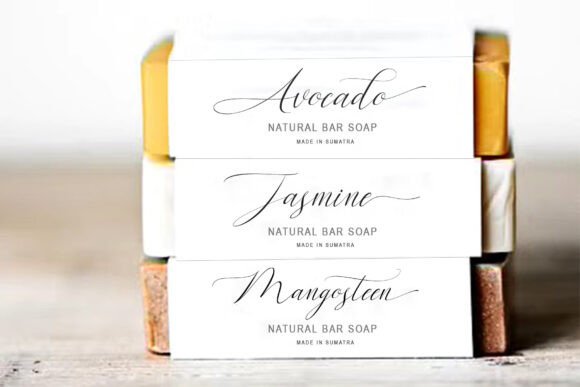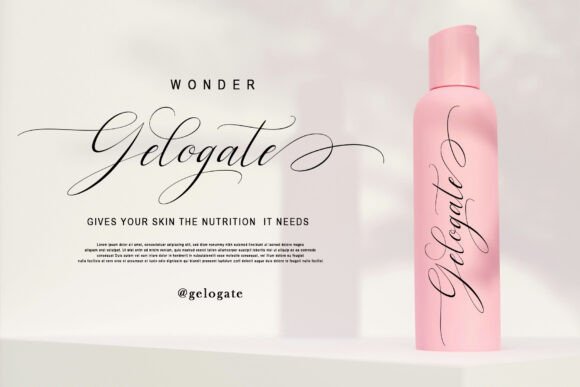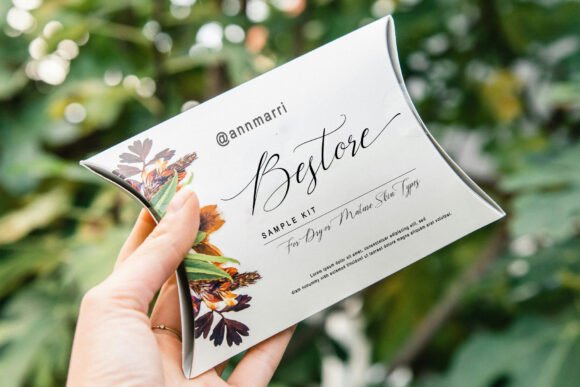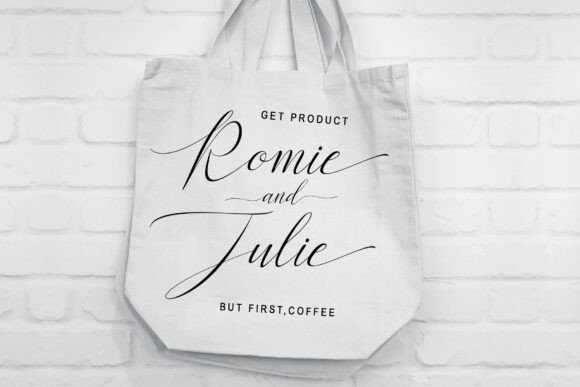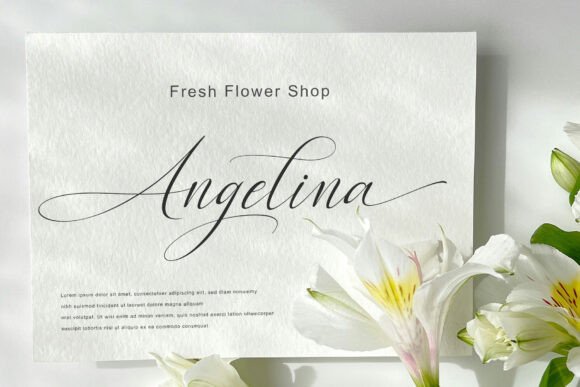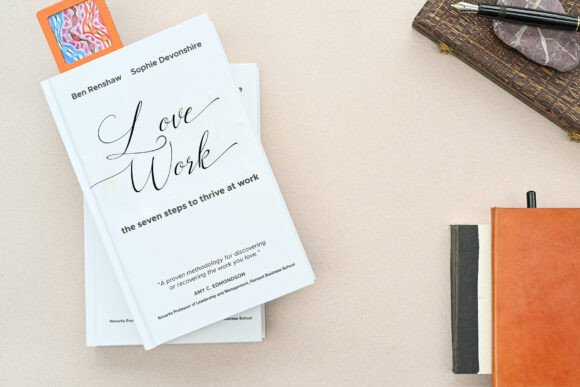
Introduction to Herdiya Font
Herdiya is a beautiful handwritten calligraphy font with elegant, flowing letters.
It has a soft, artistic style that gives a personal and creative touch to any design Perfect for invitations, greeting cards, and anything that needs a stylish, handwritten look.
Herdiya Font offers exceptional quality and versatility, making it a valuable addition to your design toolkit. Whether you’re creating for personal projects or commercial use, Herdiya Font delivers professional results.